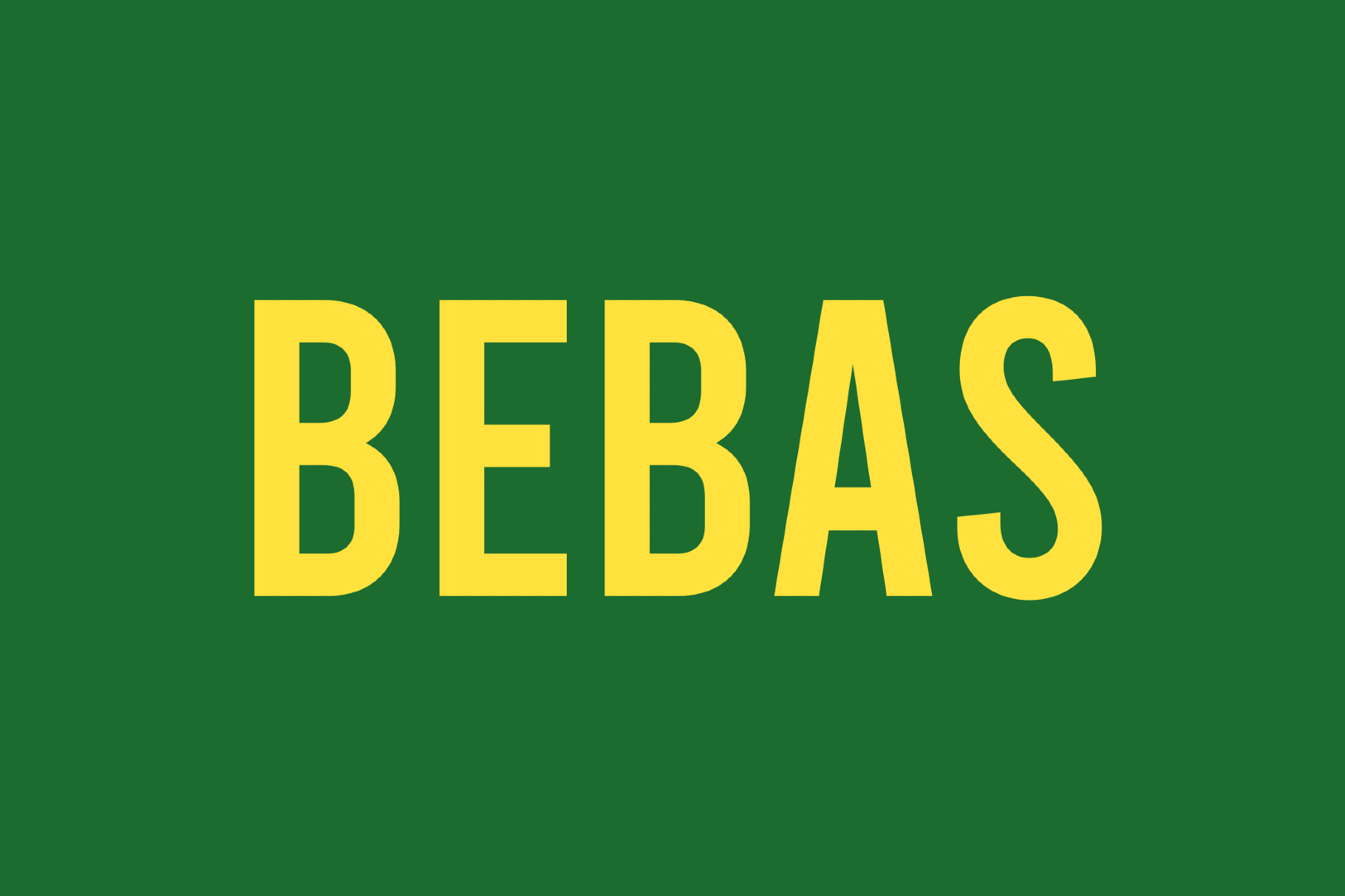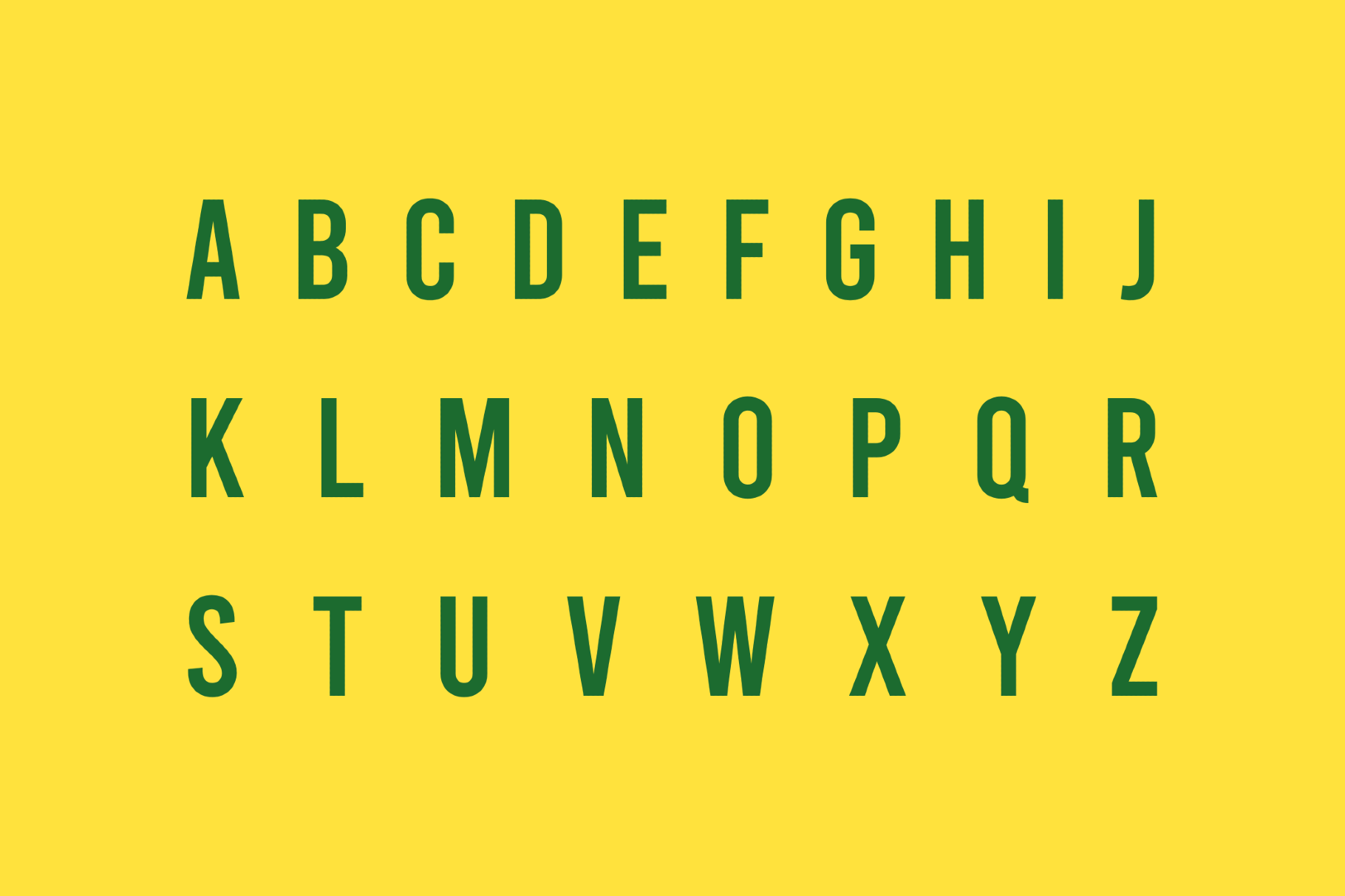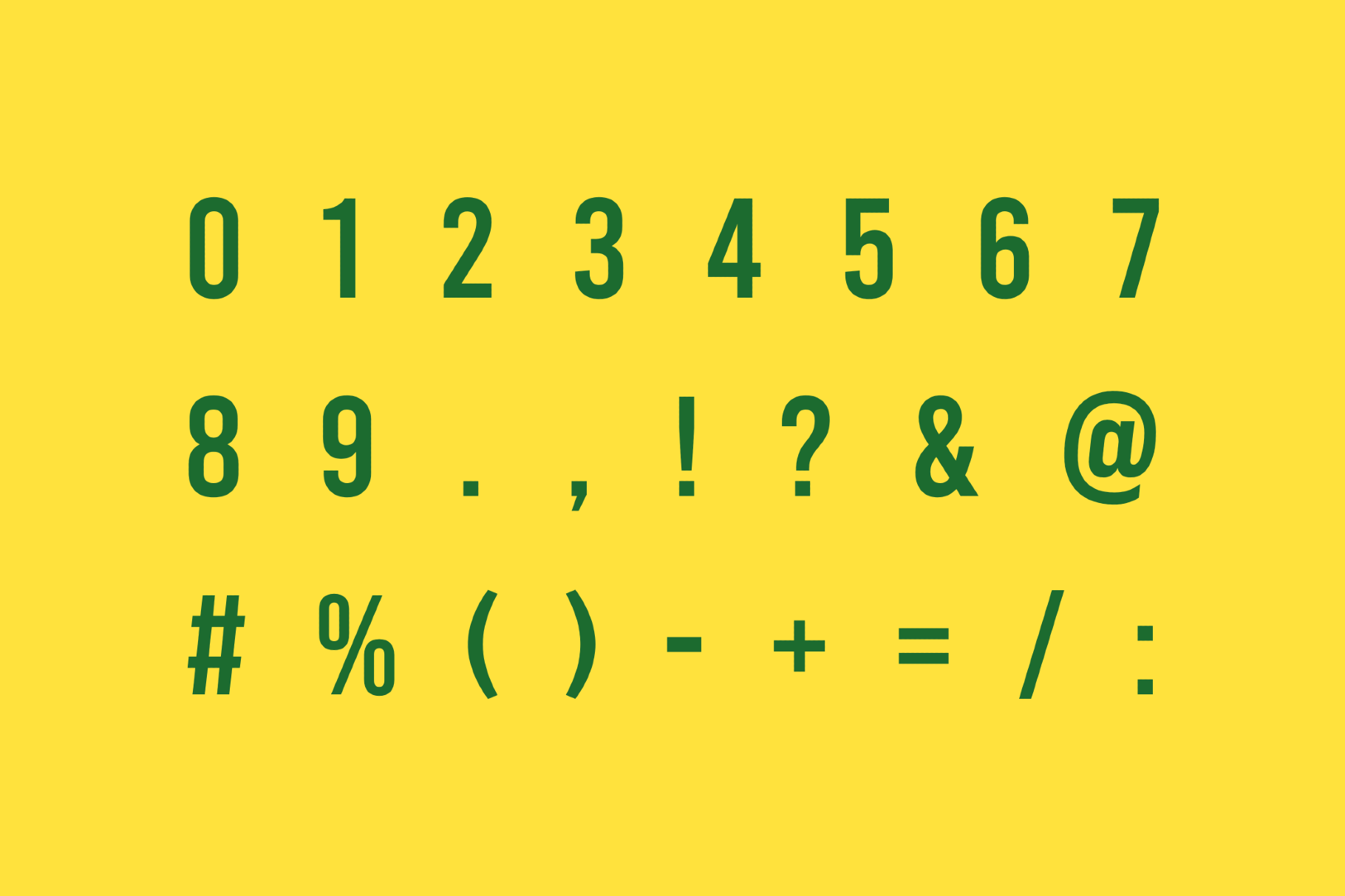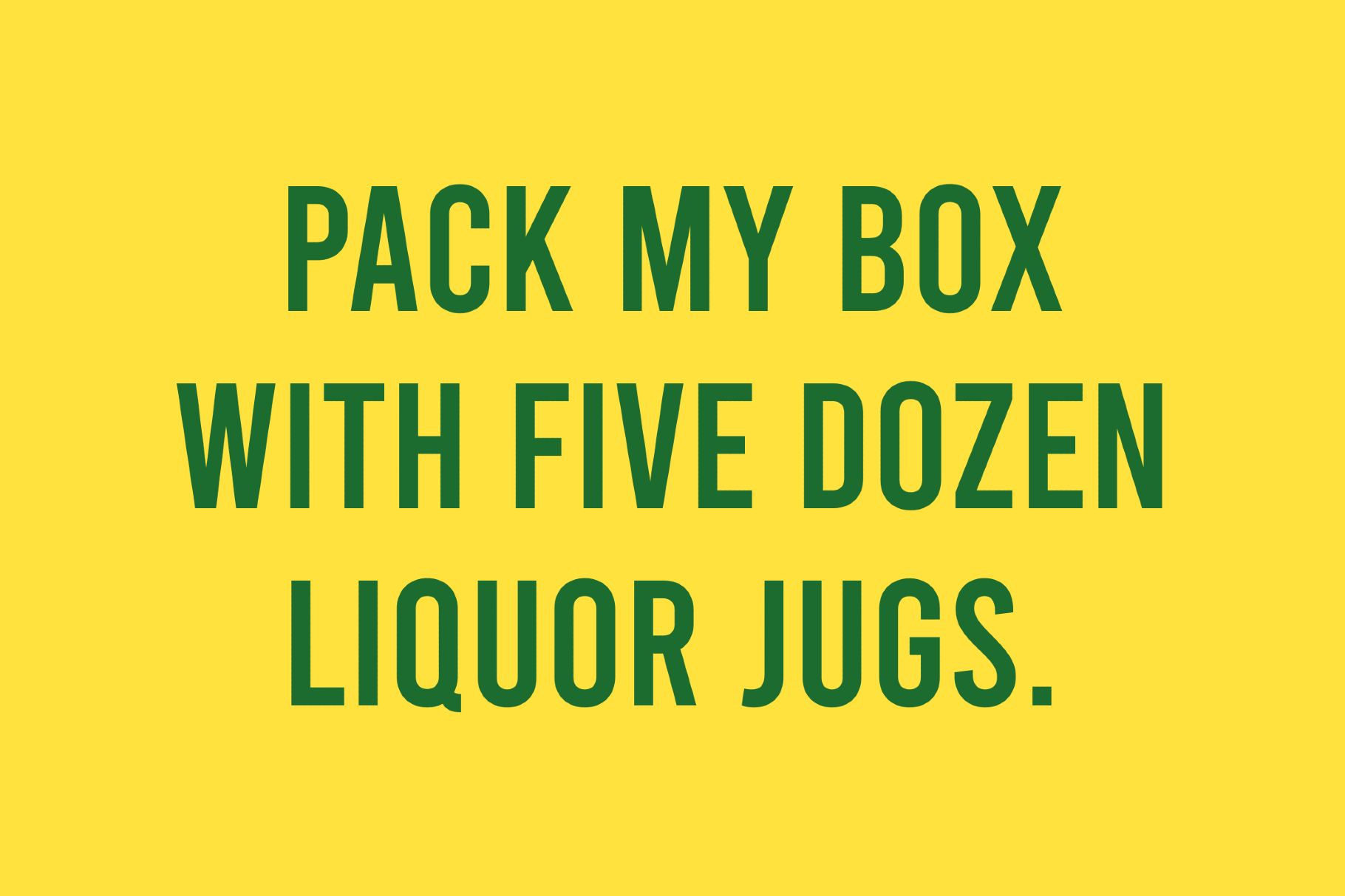
Bebas - Sports Magazine Font
Bebas is the condensed all-caps display font that became synonymous with a certain strain of 2000s graphic design — the tall, tight letterforms you can trace from extreme sports posters and skateboard deck graphics to streetwear brand lookbooks and festival merchandise.
Its single-weight structure and pure vertical rhythm make it one of the most legible condensed display fonts available. The font works for editorial mastheads, poster titles, logo work, apparel graphics, event signage, and social media headers.